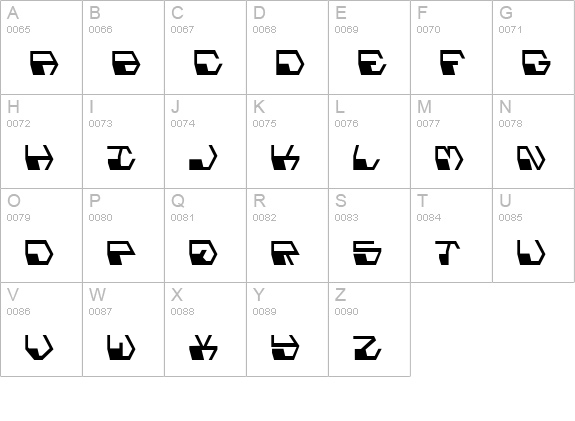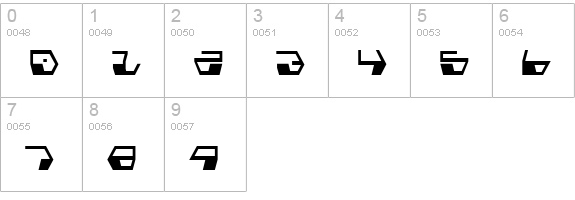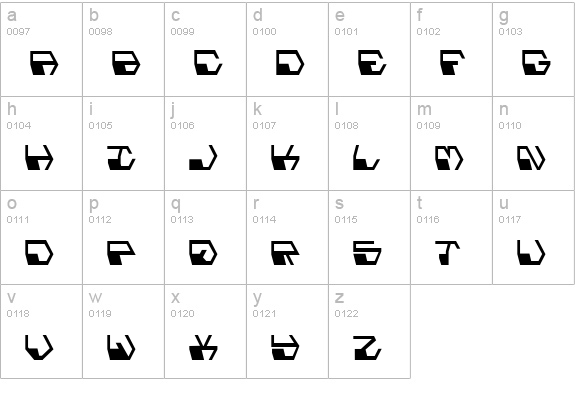
Deranian Condensed is a distinctive, condensed-width variant in the Deranian typeface family \xE2\x80\x94 well suited to design and typography projects.
Deranian Condensed font is a sleek and modern typeface that exudes elegance and sophistication. With its clean lines and compact design, this font is perfect for creating a professional and polished look in any project. The condensed style allows for more text to fit in a smaller space, making it ideal for headlines, logos, and branding materials. What makes Deranian Condensed font even more appealing is that it is completely free to download at FontsMarket.com. This means you can access this high-quality font without breaking the bank, making it a valuable addition to your font library. Whether you're working on a website, brochure, poster, or any other design project, Deranian Condensed font is sure to make a bold statement and elevate your work to the next level. Download it today and see the difference it can make in your designs!